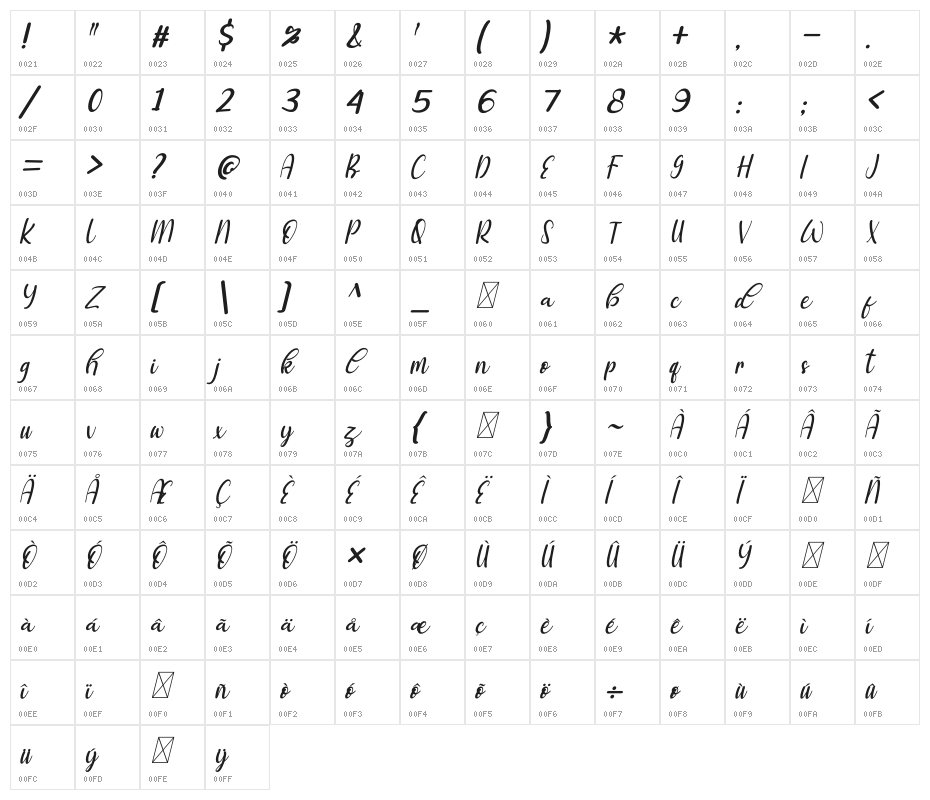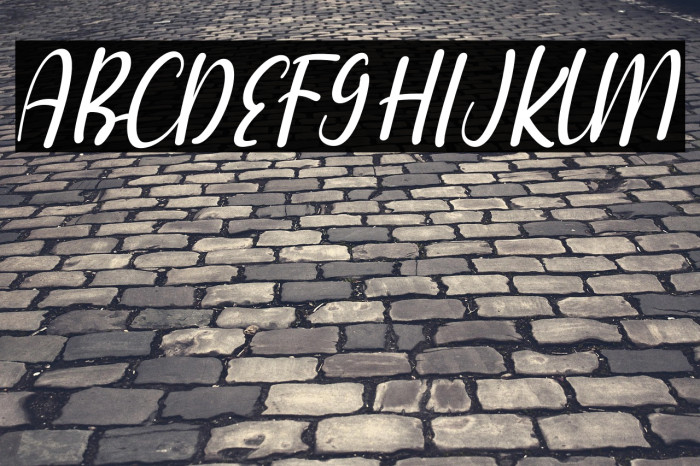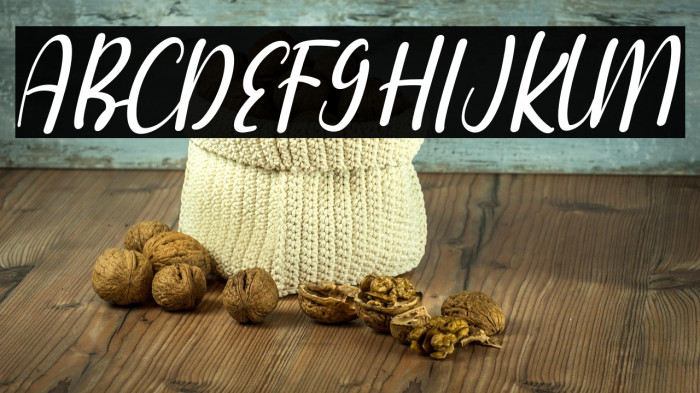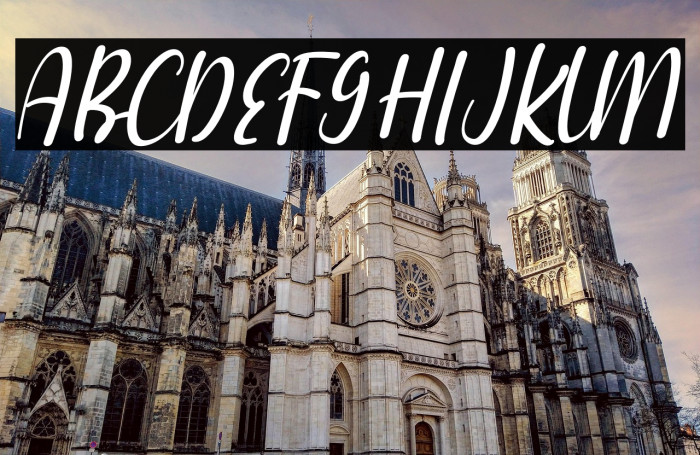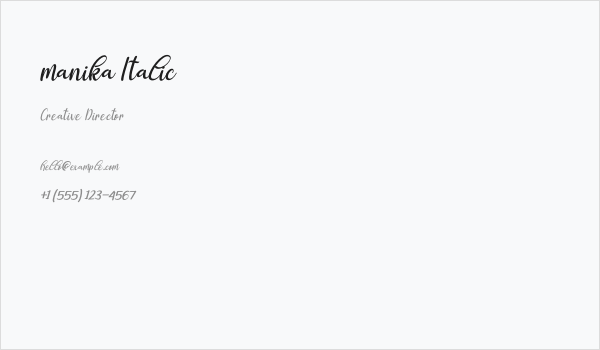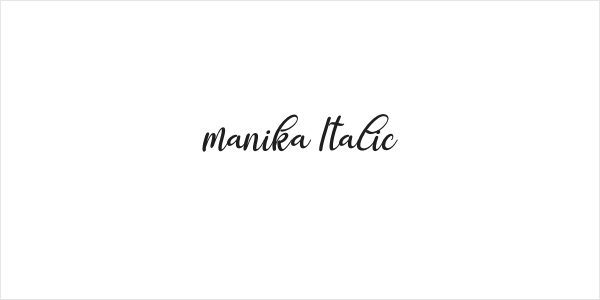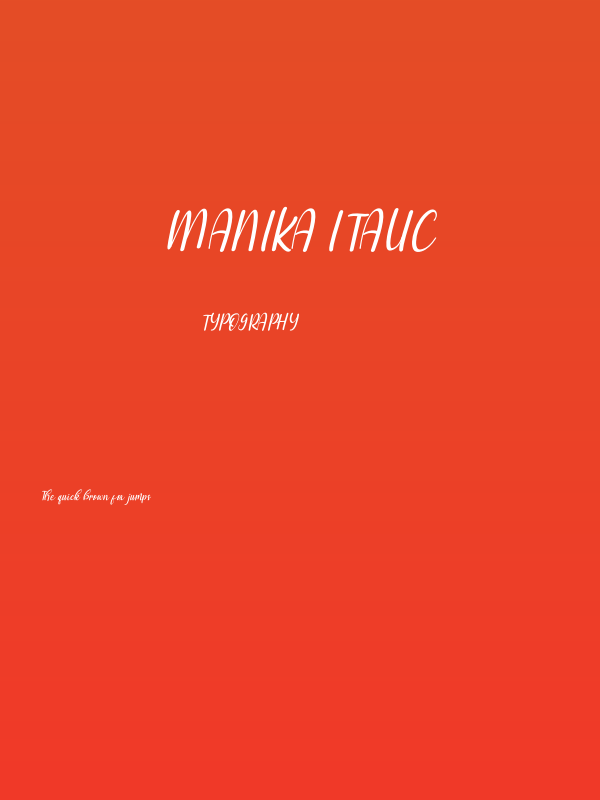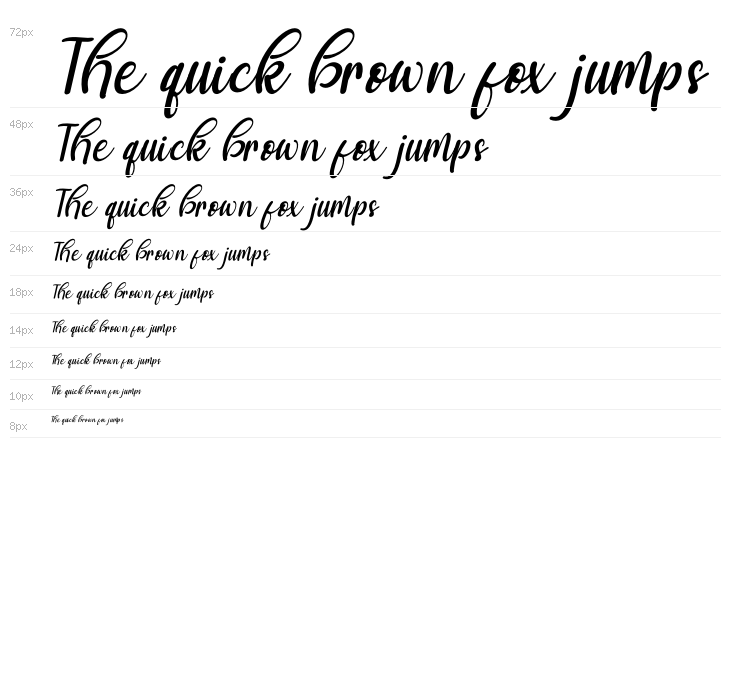
manika Italic Font
manika Italic Description
This font exhibits a flowing, cursive style with a modern flair. The letters are elegantly connected, creating a sense of movement and fluidity. The uppercase characters are bold and slightly slanted, while the lowercase letters maintain a consistent, graceful curve. Numbers are well-integrated into the overall design, matching the script's dynamic nature. Special characters are crafted with the same attention to detail, ensuring they blend seamlessly with the rest of the typeface. The overall impression is one of sophistication and creativity, making it suitable for a variety of design projects.